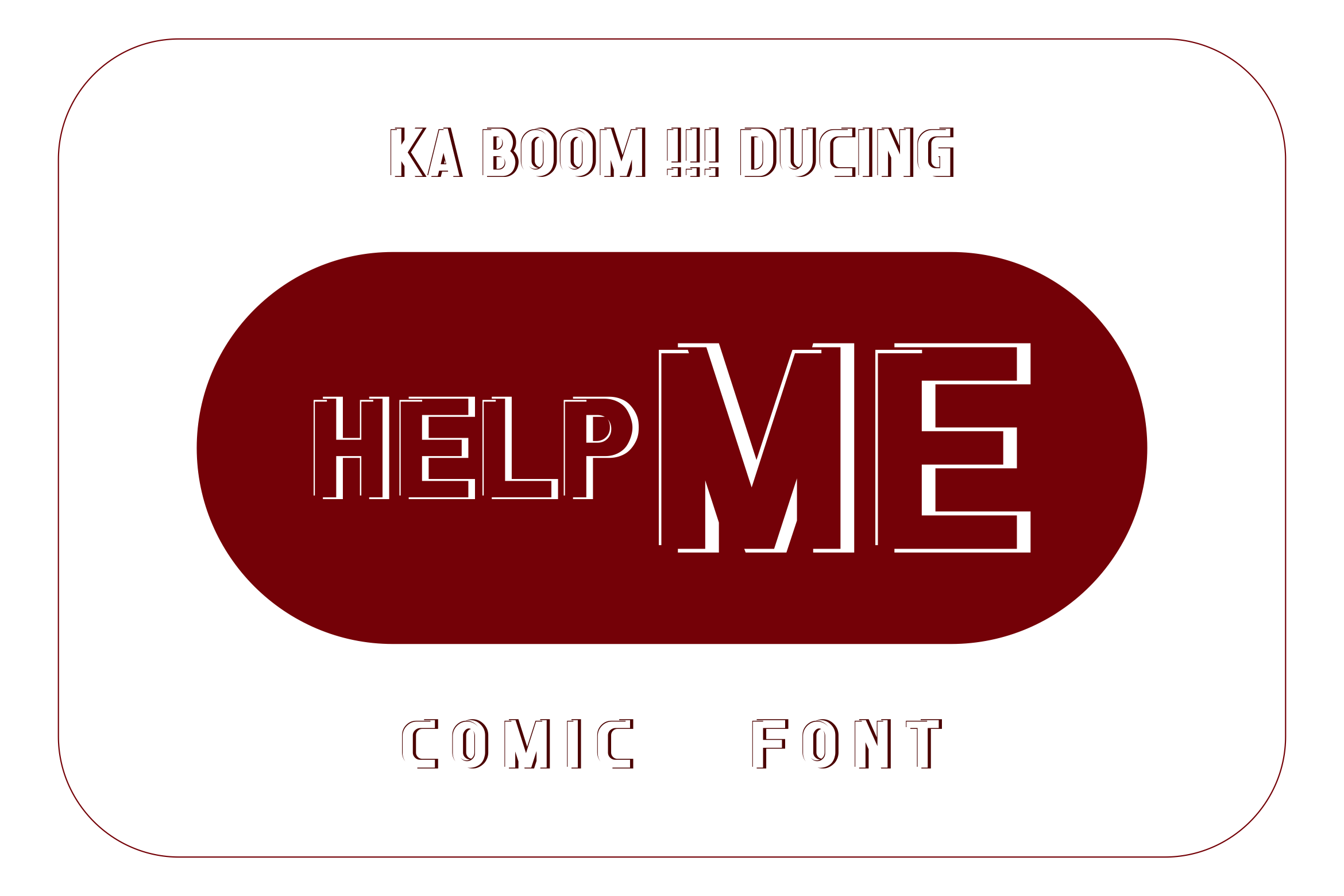
Help Me Font Comic
Like a font in the cartoon era that you may have remembered, the flat cartoon that was written in many comic books during childhood in the 90s. we're here to reminisce on this vanity-filled era of Artificial Intelligence. so that humans will never be replaced by machines. available in .OTF & .TTF Formats. Thank You